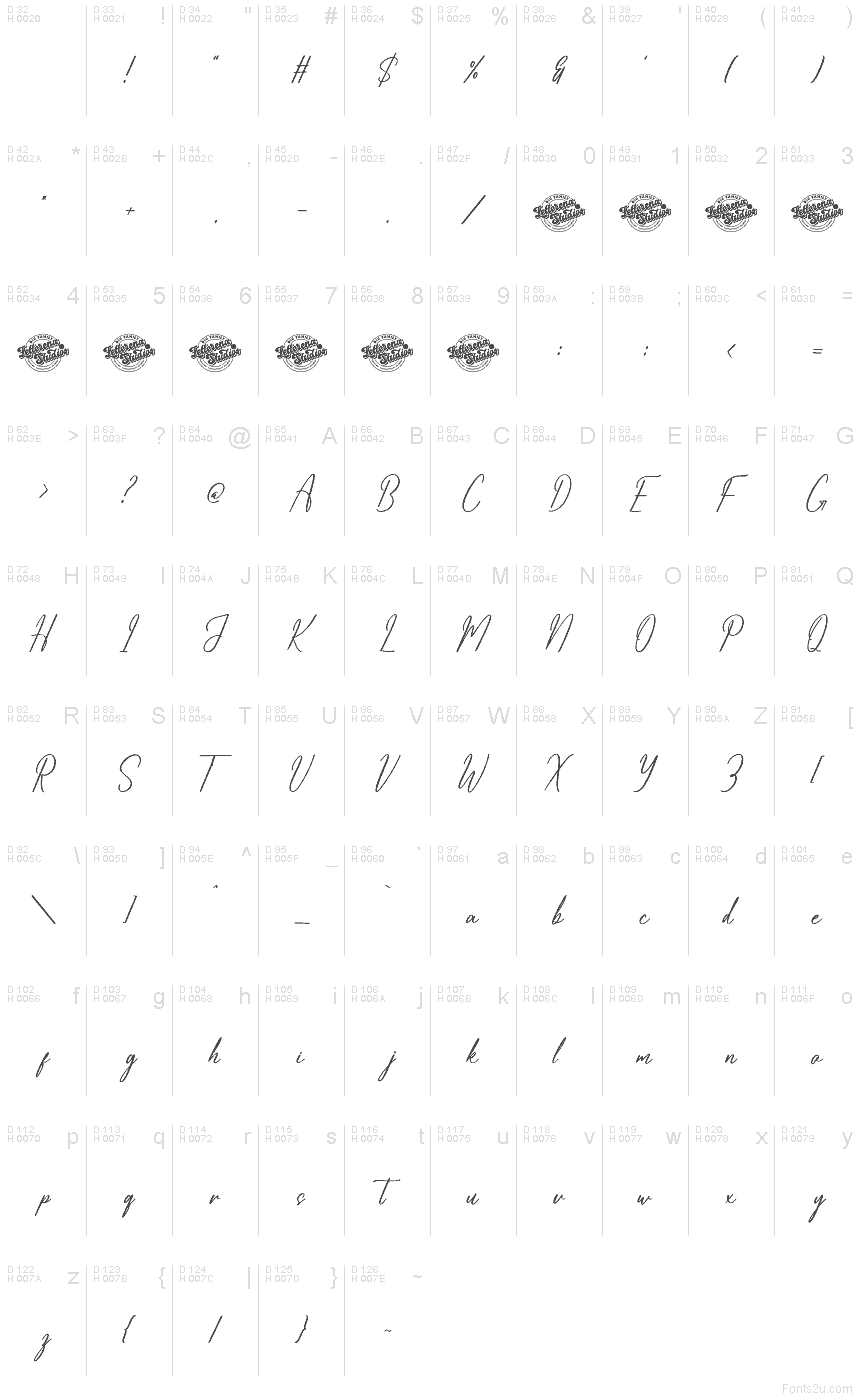
Amethykan DEMO VERSION
Amethykan font by Letterena Studios is a free handwritten signature font that solves a familiar challenge: elegance without sacrificing readability. Its feather-light strokes, airy loops, and steady rhythm keep words flowing while staying clear at a glance—no blotchy blobs or cramped swashes. The texture feels like a fine gel pen on smooth paper, giving names and headlines a polished, effortless finish.
Using Amethykan, you can craft signature logos, boutique branding, wedding invitations, product packaging, watermark overlays, and Instagram quotes that look refined, not fussy. This free font shines on short phrases and names; keep tracking modest and size it generously for the most graceful sweep. Pair with a clean, unobtrusive sans serif to let the script do the talking.